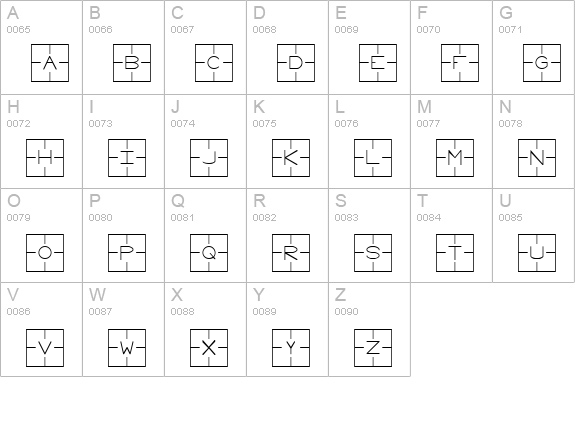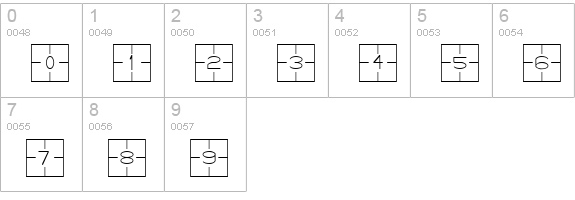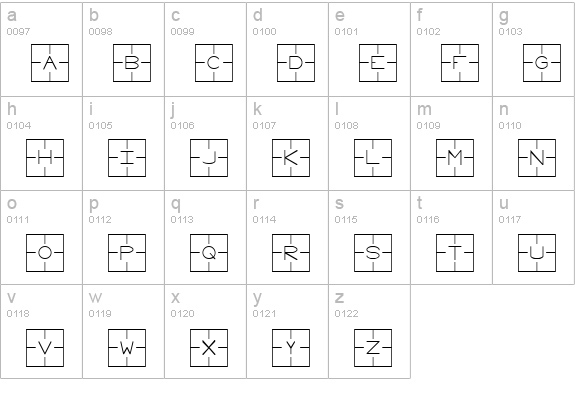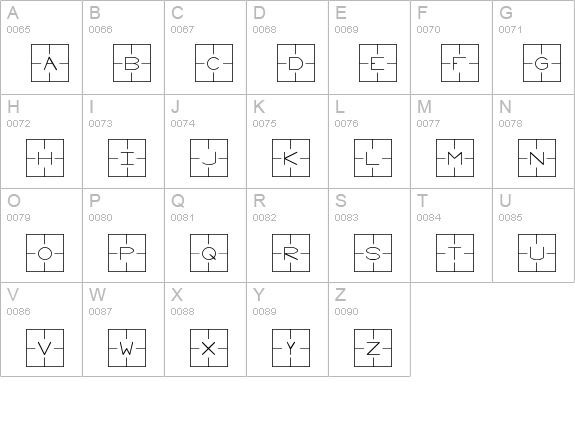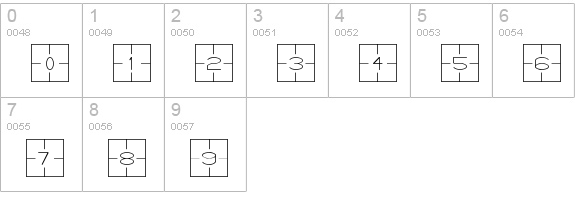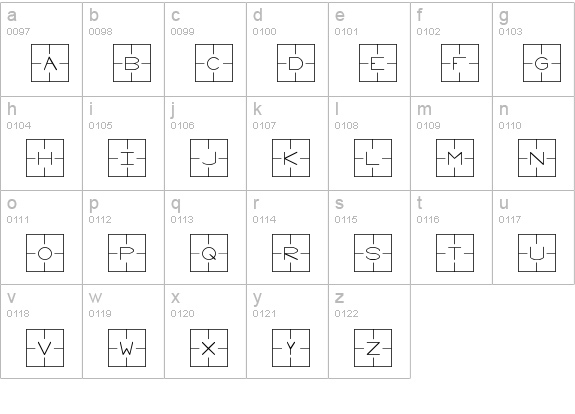
Laser Systems Normal is the standard, neutral variant in the Laser typeface family \xE2\x80\x94 well suited to general body text, paragraphs, and standard typographic work.
The Laser Systems Normal font is a stunning display of modernity and elegance, perfect for adding a touch of sophistication to any design project. With its sleek lines and bold curves, this font effortlessly commands attention and leaves a lasting impression. This font is not only visually captivating but also incredibly versatile, making it an ideal choice for a wide range of applications. Whether you need to create eye-catching logos, stylish headings, or striking signage, Laser Systems Normal font has got you covered. One of the best parts about this font is that it is freely available to download at FontsMarket.com. That means you can easily access and use this font in your projects without any hassle. Say goodbye to spending hours searching for the perfect font, because Laser Systems Normal font is just a few clicks away. With its high-quality design and seamless legibility, Laser Systems Normal font ensures that your message is delivered with clarity and impact. Each character is meticulously crafted, resulting in a font that is both visually stunning and highly readable. So whether you are a professional designer or a casual DIY enthusiast, Laser Systems Normal font is a must-have addition to your font collection. Its timeless appeal and wide range of applications make it a valuable asset that you will find yourself turning to again and again. Experience the power and beauty of Laser Systems Normal font today, and elevate your designs to new heights. Download this incredible font for free at FontsMarket.com and let your creativity soar.